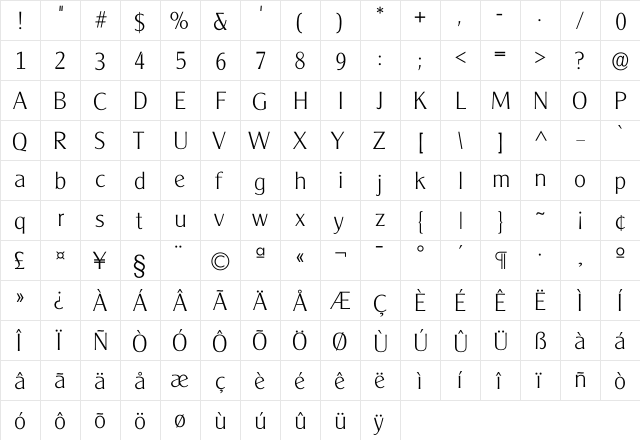
Cleaxg Xlight
Design Context for Cleaxg Typeface
Cleaxg offers clean, dependable letterforms without strong stylistic allegiance, making it a practical choice for designers who need flexibility. The delicate stroke weight brings airiness and refinement to layouts.